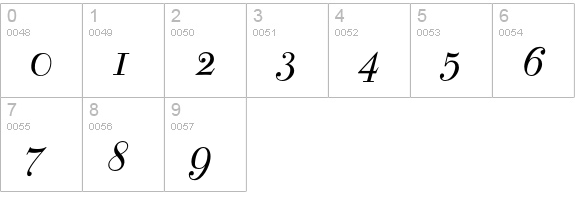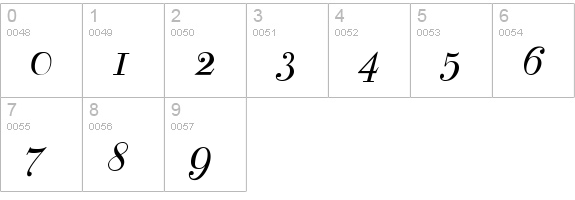
BodoniClassic-AdItalic is a stunning and elegant font that exudes sophistication and style. With its sleek lines and graceful curves, this italicized version of the BodoniClassic font family adds a touch of flair and refinement to any design project. Whether used for headings, quotes, or body text, BodoniClassic-AdItalic brings a sense of timeless beauty to your typography. Best of all, BodoniClassic-AdItalic is available for free download at FontsMarket.com. This means that you can easily enhance your creative projects with this exquisite font without any cost. Don't miss out on the opportunity to elevate your designs with the classic charm of BodoniClassic-AdItalic. Download it today and add a touch of elegance to your work!